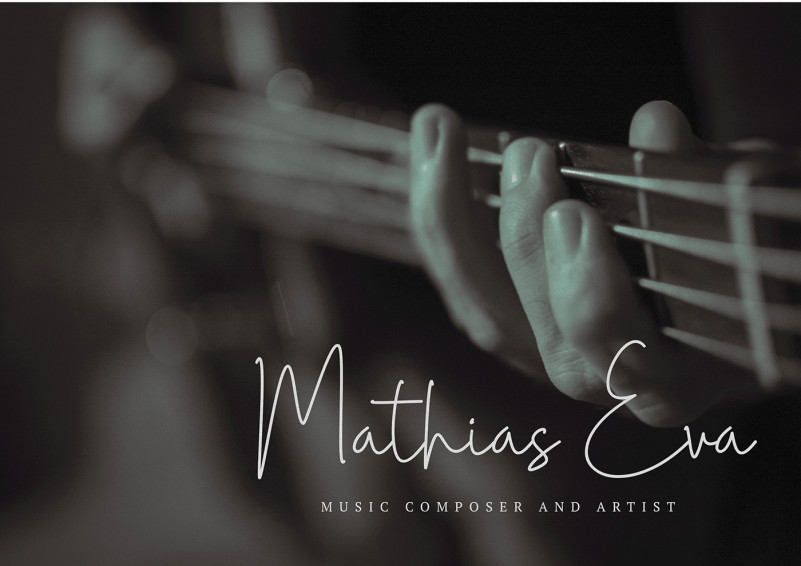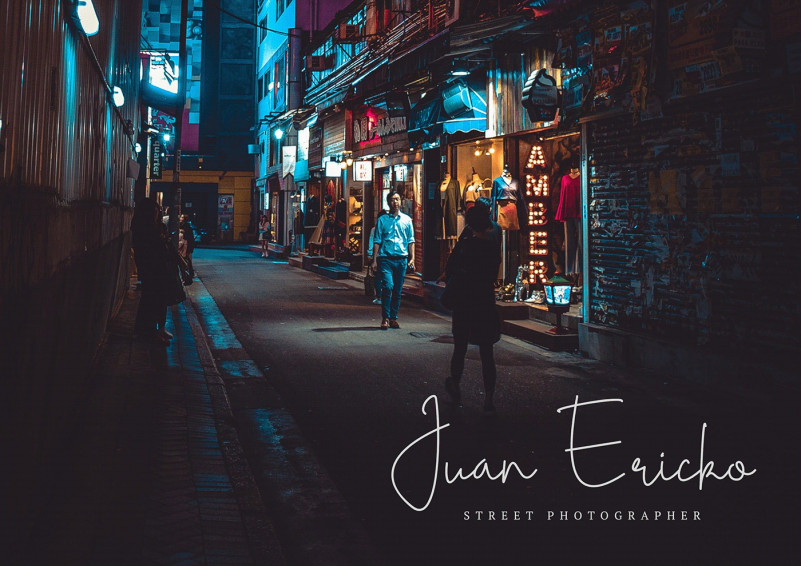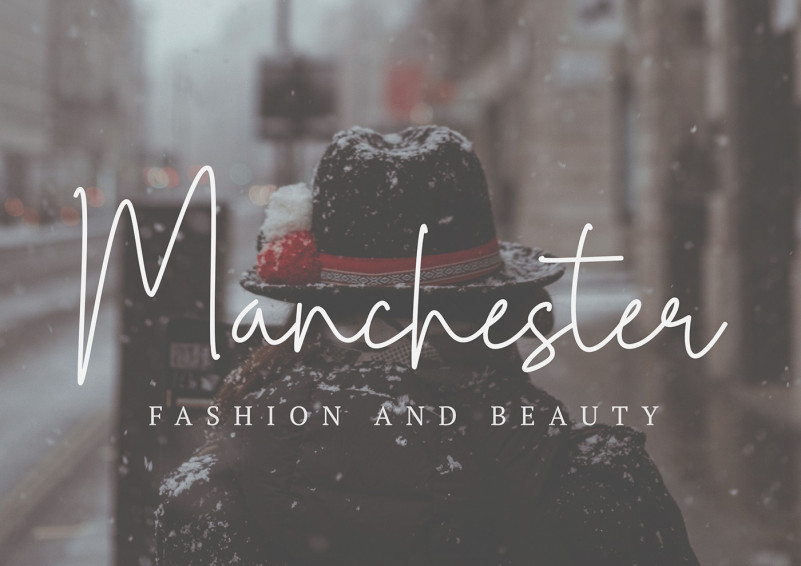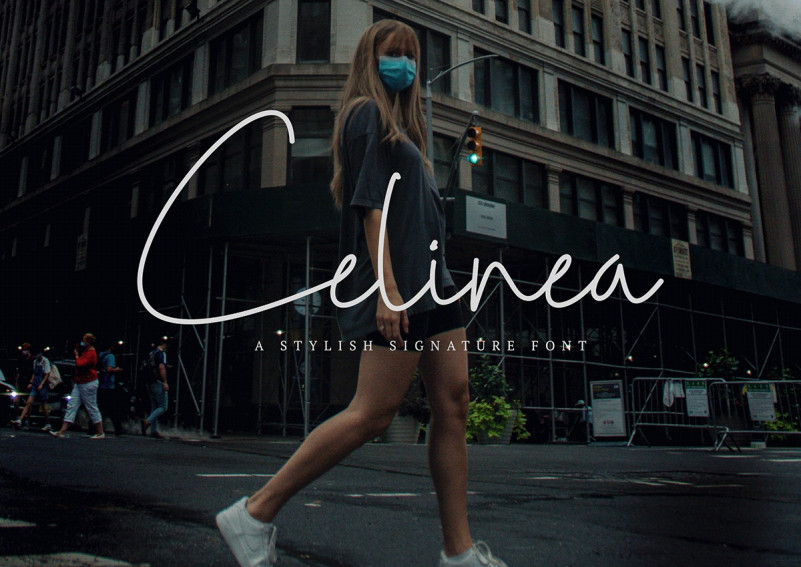
Celinea Font
Celinea Handwritten Font
This is a well crafted monoline script font by novan esthi. Its sweet and full of life style makes this font a wonderful choice for brightening up your designs. Suitable for photography projects, labels, or other projects, hope it can help for your project needs.